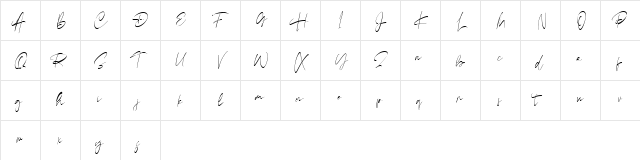
Richmond Regular
| Designer | Vunira |
Design Context for Richmond Typeface
Richmond is a composed and adaptable typeface that performs quietly and consistently across a wide range of design contexts.
Pro Tip: Pair Richmond with a font of contrasting weight or personality to build a more expressive typographic hierarchy.